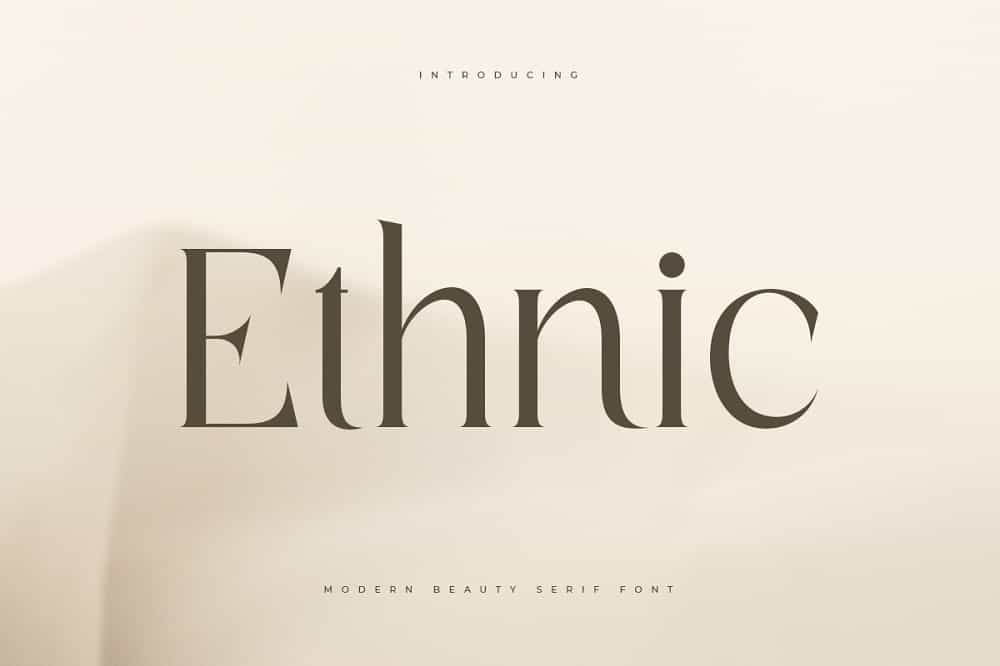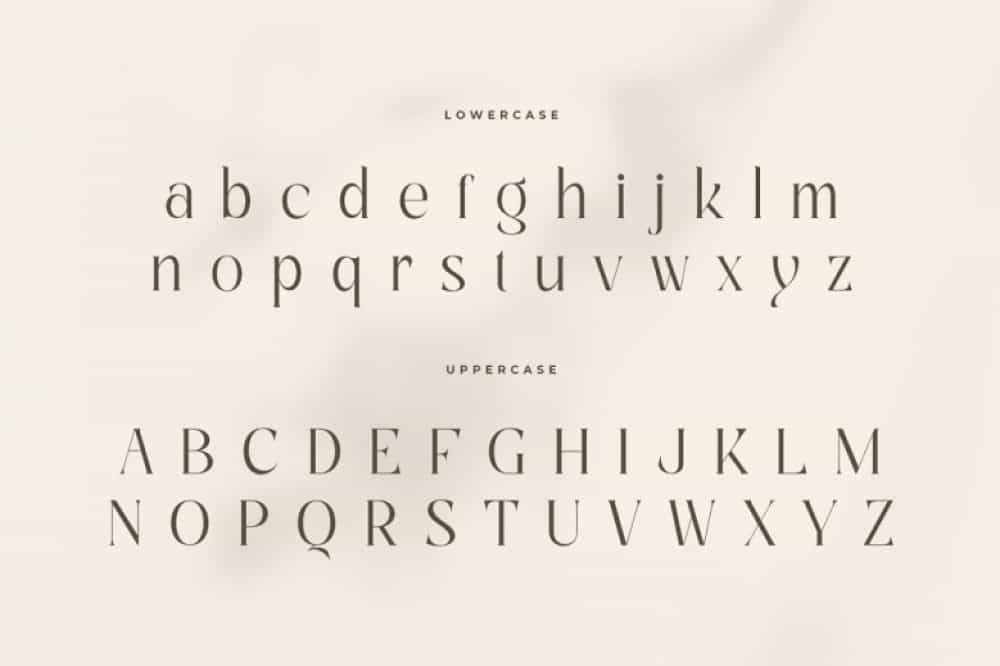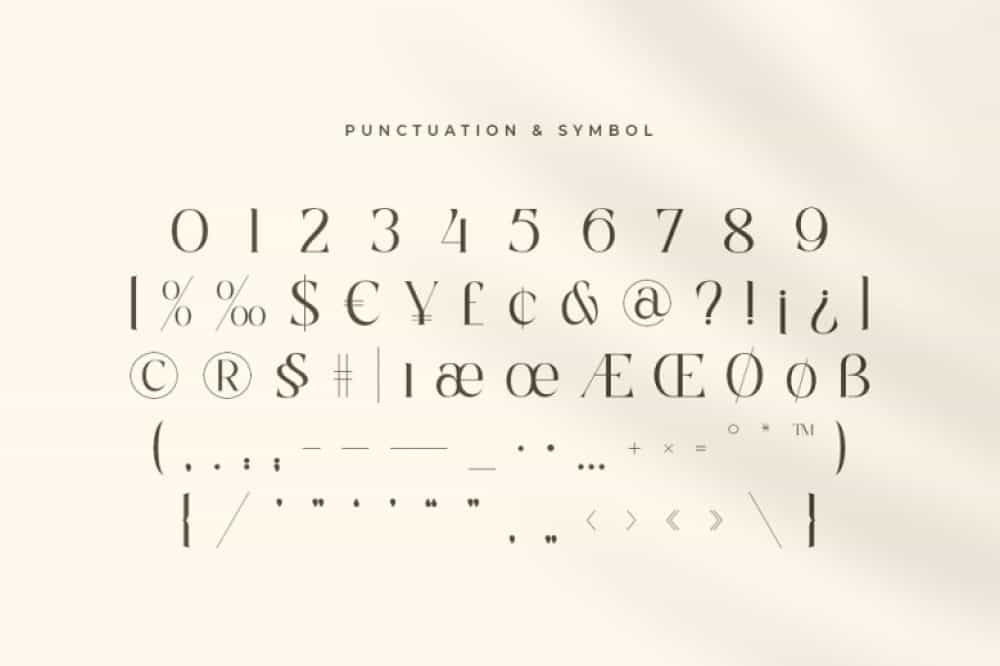
Ethnic Font
Ethnicis is a luxury modern serif font that we have design to meet the elegant branding needs, with this unique shape will be able to give value to your brand. It would be quite helpful for a designer or a product owner who may require solutions to make the design of the product they intend to develop to look more fashionable and elegant.